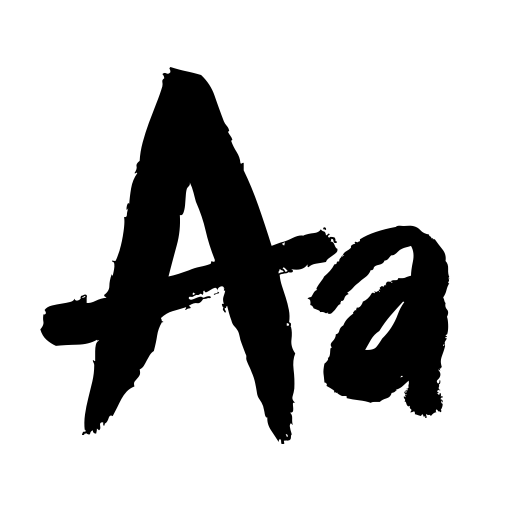
Bad Calligraphic 2 is an uneven, hand-drawn serif font that mimics a rough, imperfect calligraphy style with irregular strokes and jagged edges. It has a playful, quirky personality making it ideal for artistic or informal projects, such as posters, creative branding, or editorial headlines where a raw, expressive touch is desired. This font lends a distinctive, handcrafted feel, standing out best in display use rather than body text.
Bad Calligraphic 2 Font
About Bad Calligraphic 2 Font
| Font family | Bad Calligraphic 2 Font |
| Designer | Vidkä |